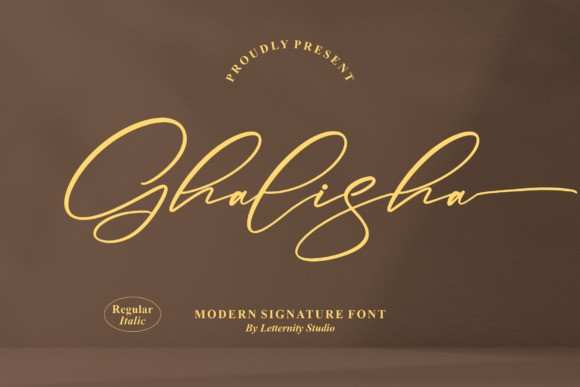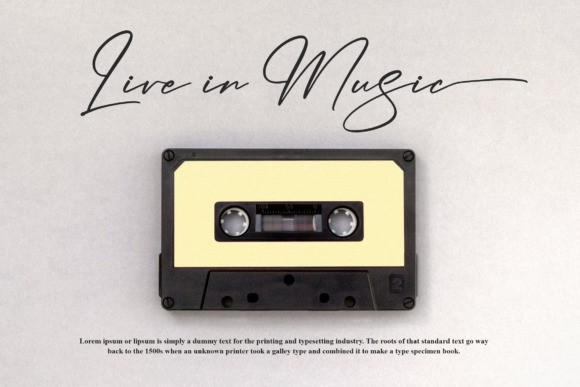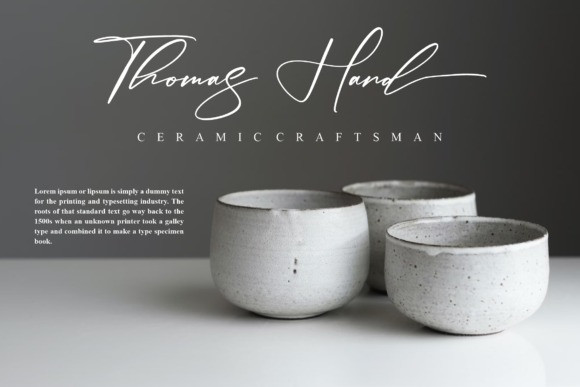
Ghalisha Font
Ghalisha is a free-flowing script font created for packaging products, invitation cards, flyers, mockups, event posters, and anything else that requires high-quality vibes. This font is PUA encoded which means you can access all of the glyphs and swashes with ease.